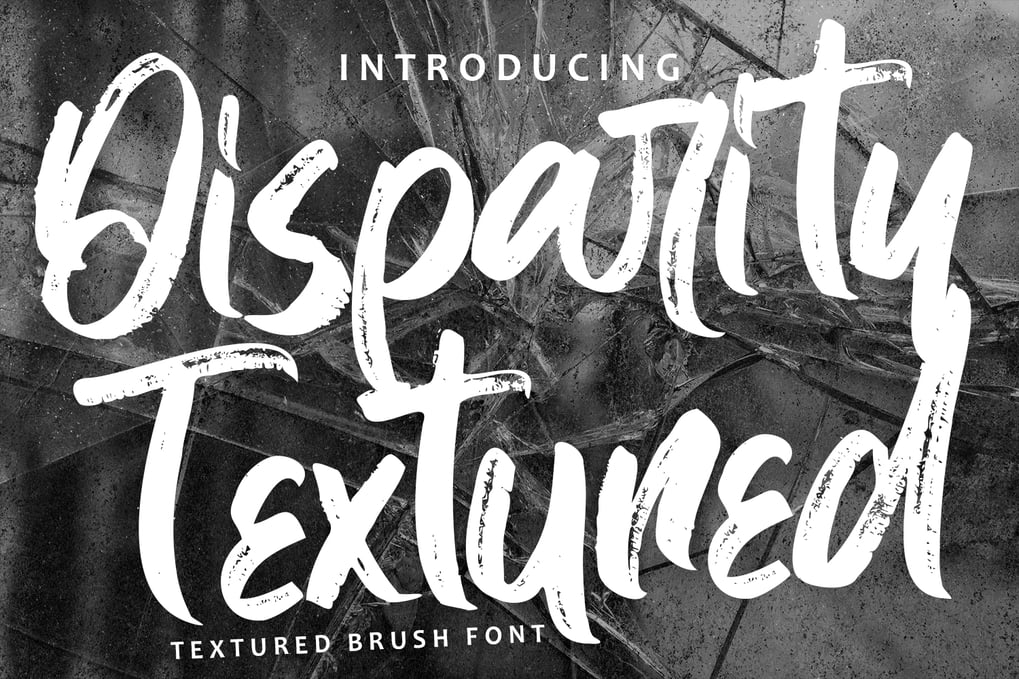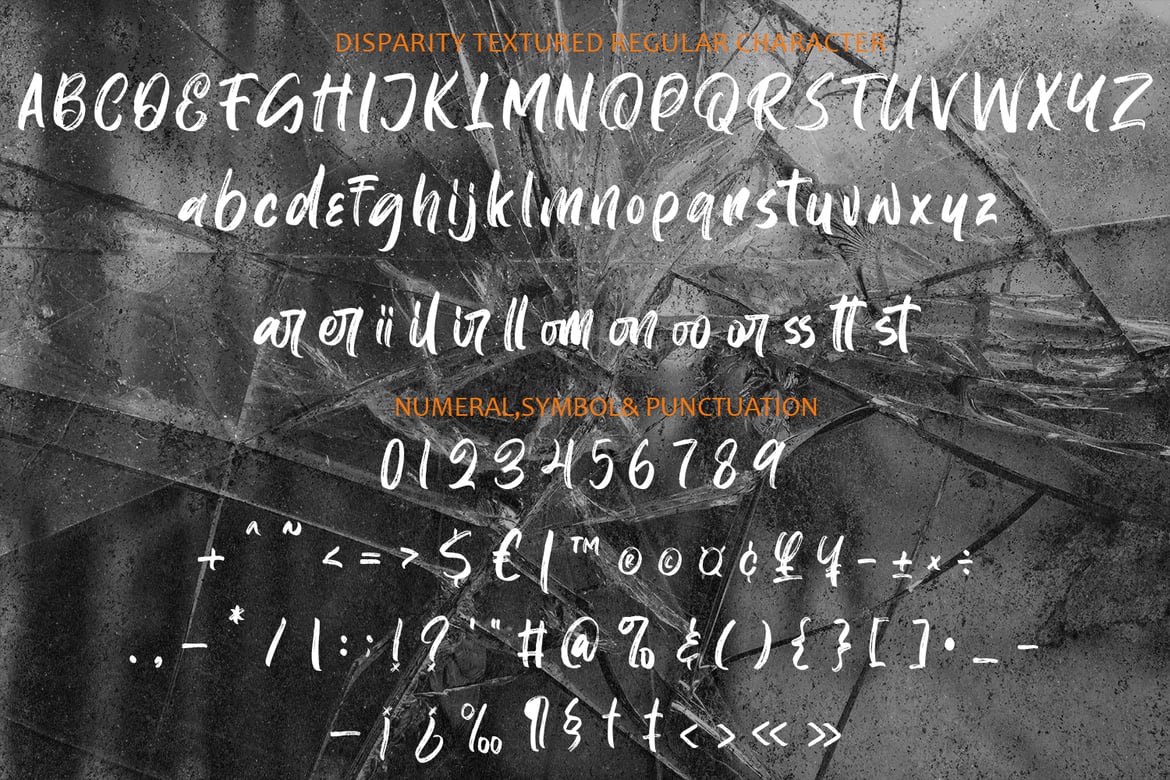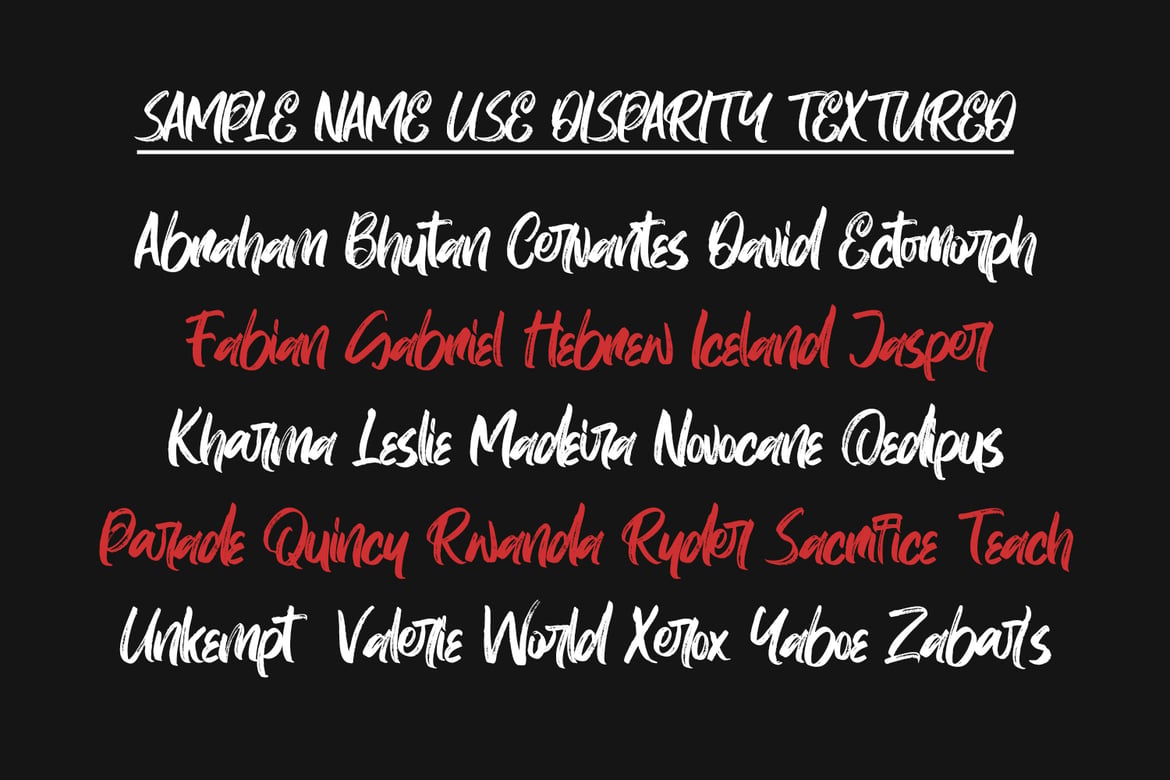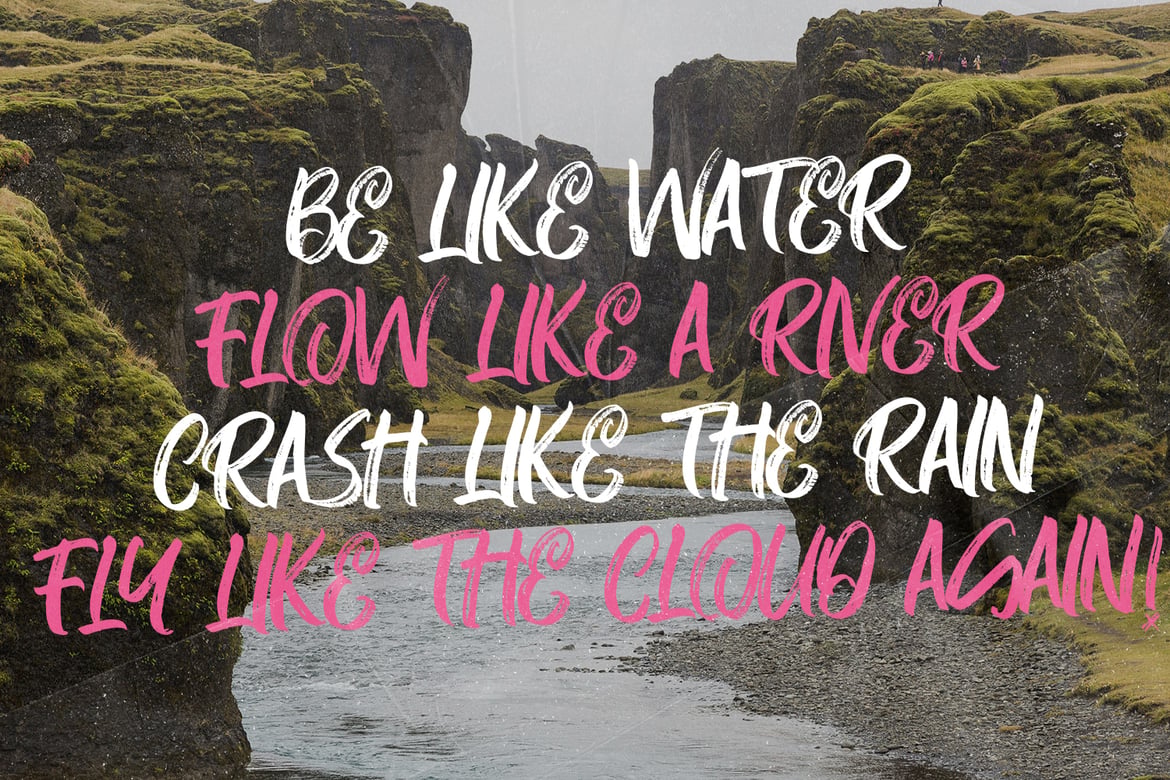
DisparityTextured – Textured Brush Font
DisparityTextured – Textured Brush Font contains a lowercase, and uppercase, symbol, and also supports multi-language. There’s a lot of ligature in this font. DisparityTextured – Textured Brush Font also comes with ligatures, stylistic alternates, and many more. this font is suitable for fashion, branding, catalog, and other designs that you want.